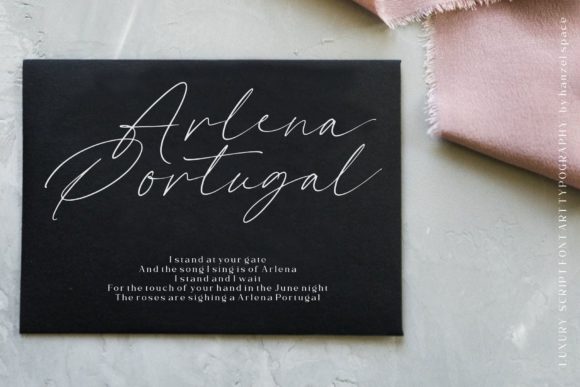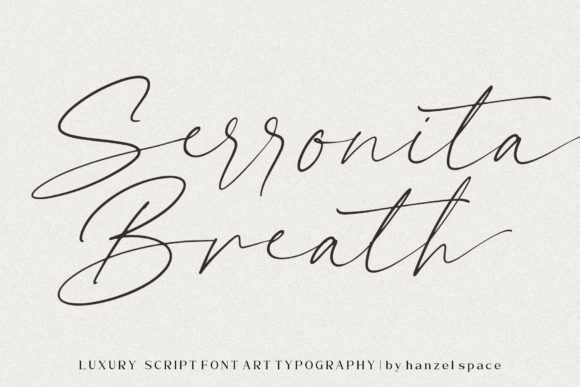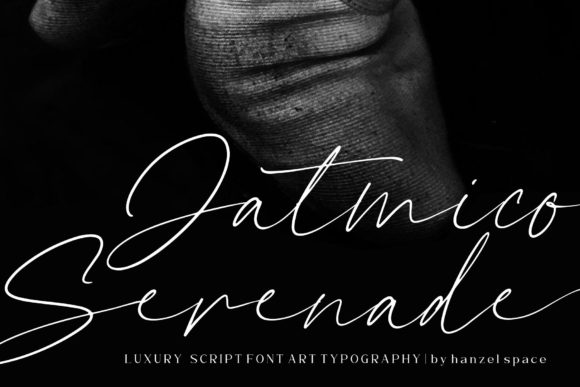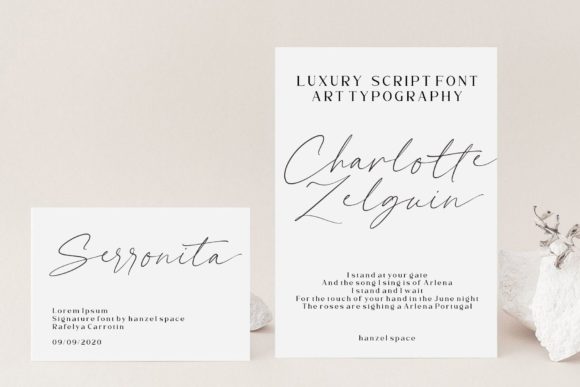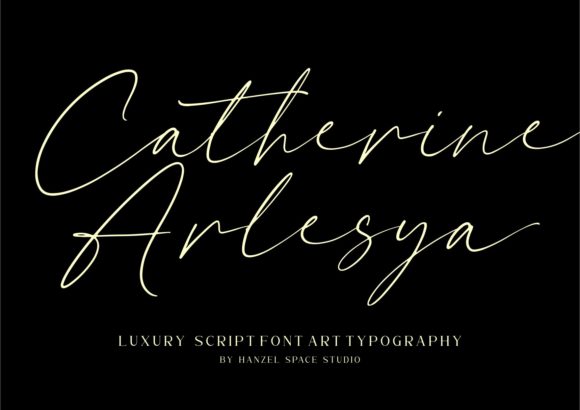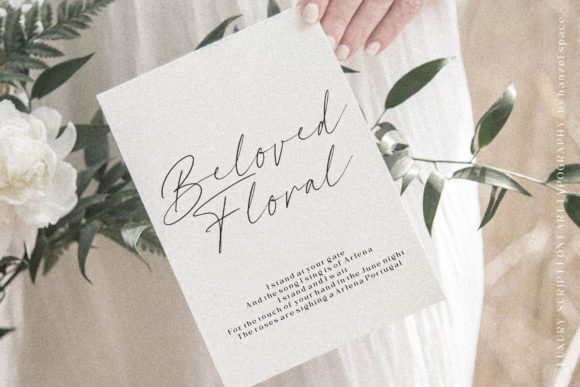
Introduction to Rafelya Carrotin Font
Rafelya Carrotin is a delicate, elegant and flowing handwritten font.
It has beautiful and well balanced characters and as a result, it matches a wide pool of designs Add it to your most creative ideas and notice how it makes them come alive.
Key Features of Rafelya Carrotin Font